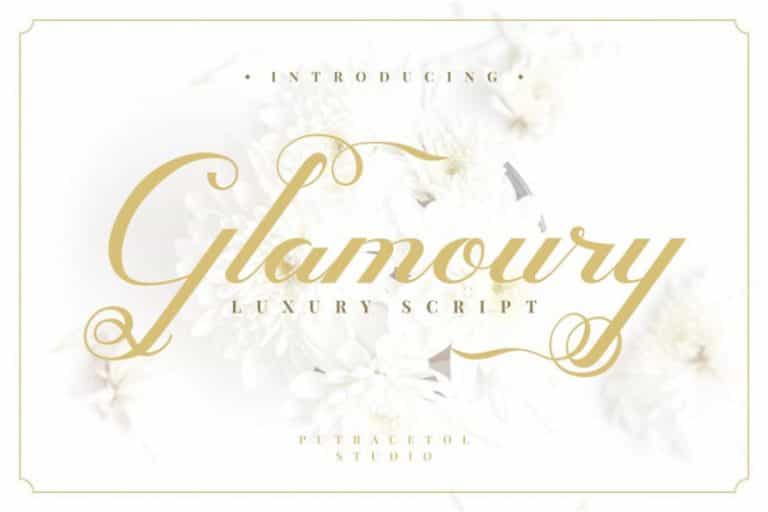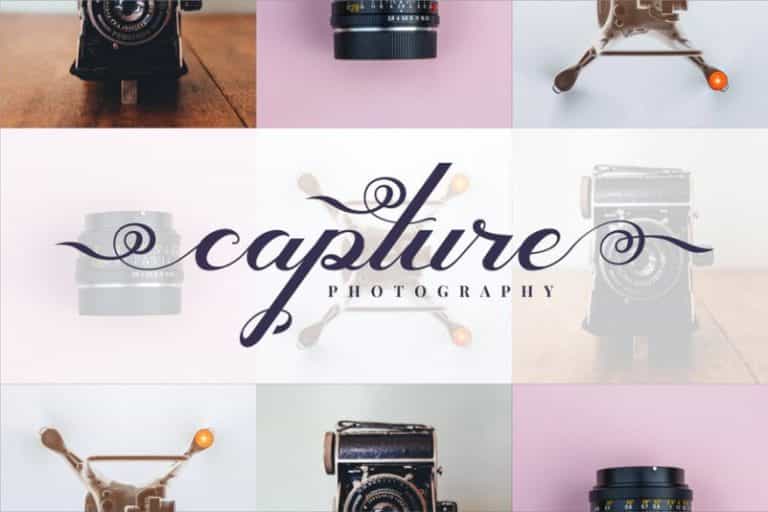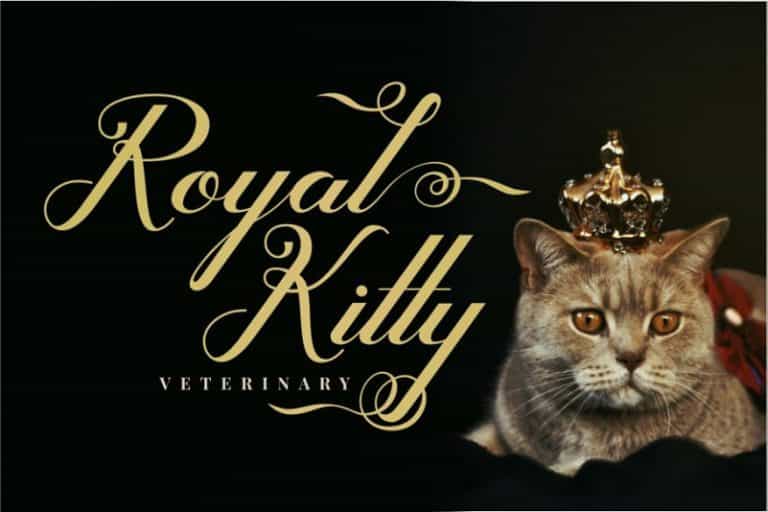
Discover Glamoury Script Font, part of the Calligraphy collection—a versatile and unique font perfect for adding a personal touch to your projects. Download it for free and enjoy crafting designs with style, from invitations to social media posts. This font is available exclusively for personal use, giving you the freedom to create without limits. Unlock your creativity with Glamoury Script Font today!
Introducing Glamoury Font. This font is fancy, royal, elegant, classic and beautiful decorative script font with a touch of modernity. Come with the open type feature along with a lot of alternates, this way you can make some great lettering. Glamoury can be used the most for headings, covers, invitations, labels, posters, logos. quotes product packages headers merchandise social media and greeting cards as well as many other things.